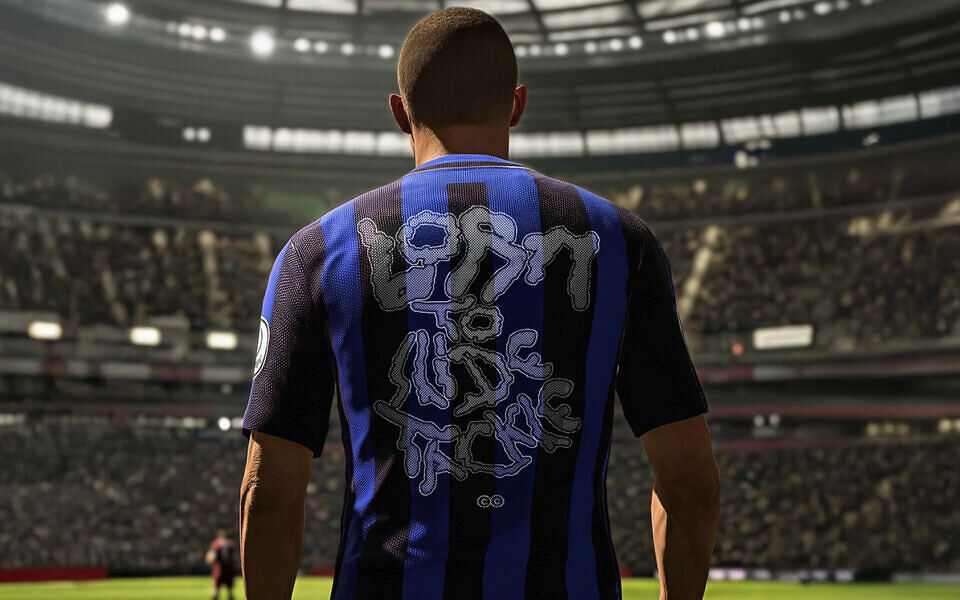
Most fonts are clean and perfect. Yes, Helvetica, we’re talking to you. But we prefer the ones made with sweat, mud, and a hint of controversy. That’s why we created Slide Tackle Font, a typeface born from the marks left by slide tackles on the FC25 game field.
Designed by legends with more red cards than anyone else: Pepe, Sergio Ramos, Materazzi, Luis Suárez, and of course, Gerardo Bedoya. It’s 100% free for anything, personal or commercial use.